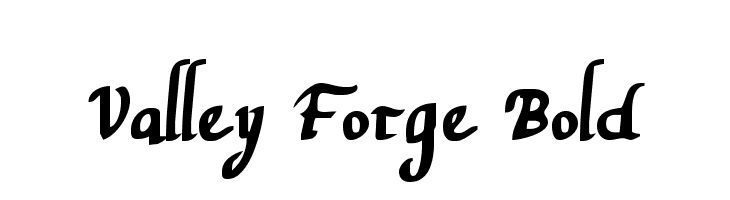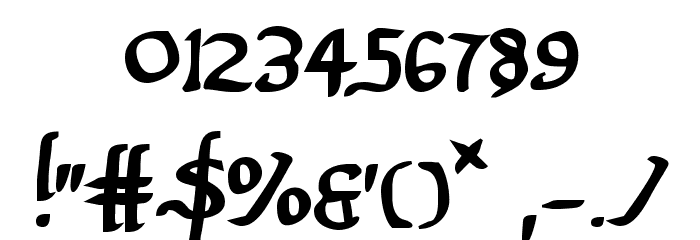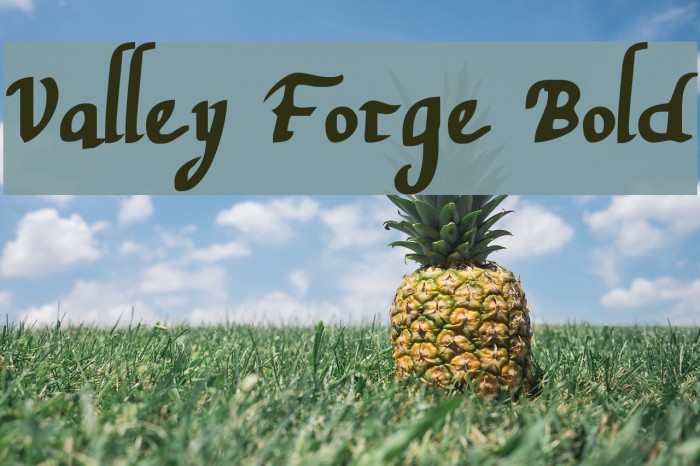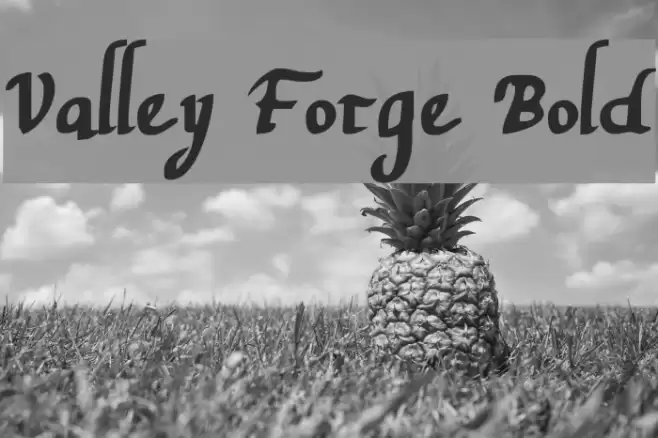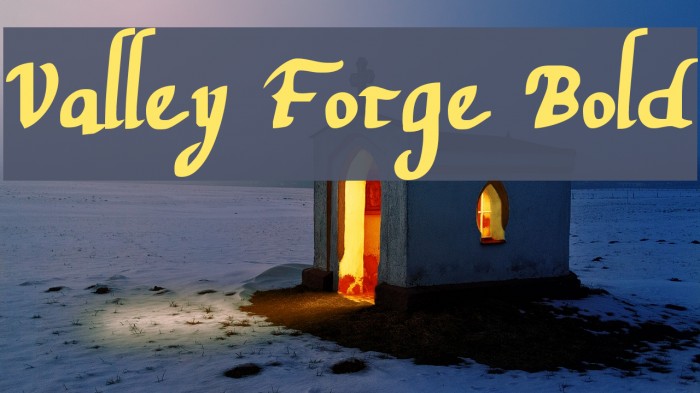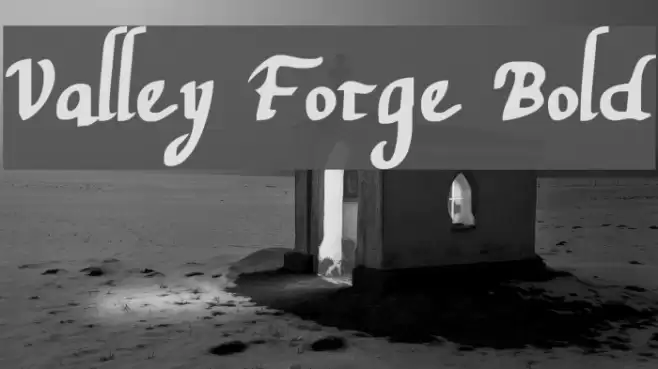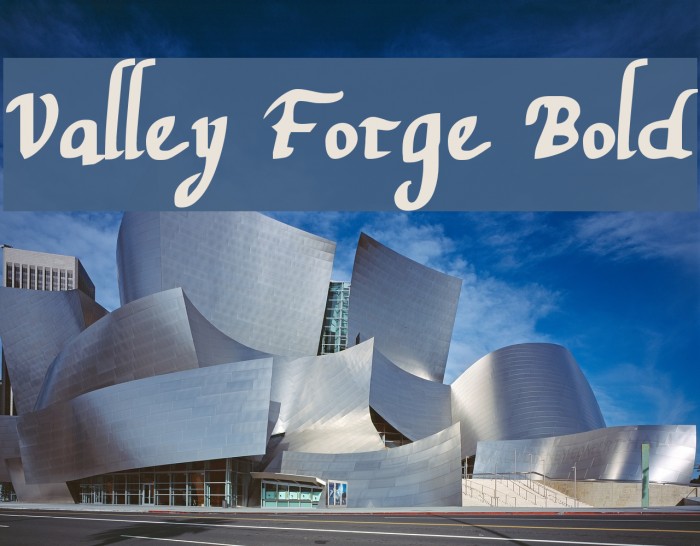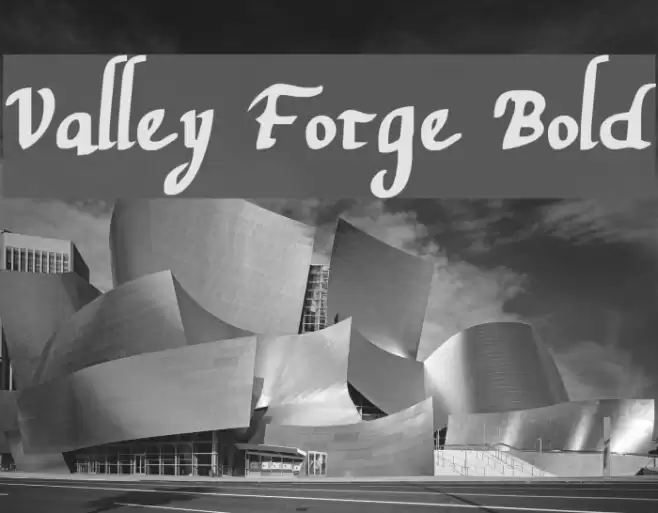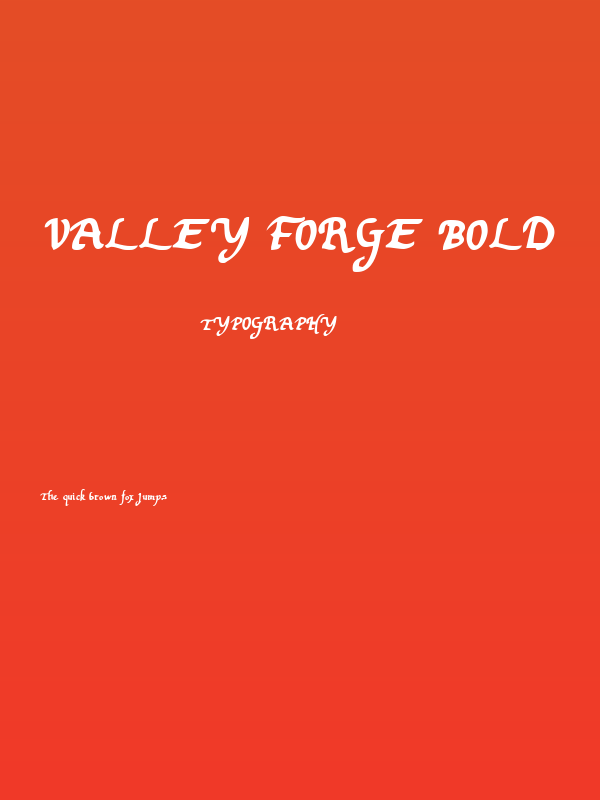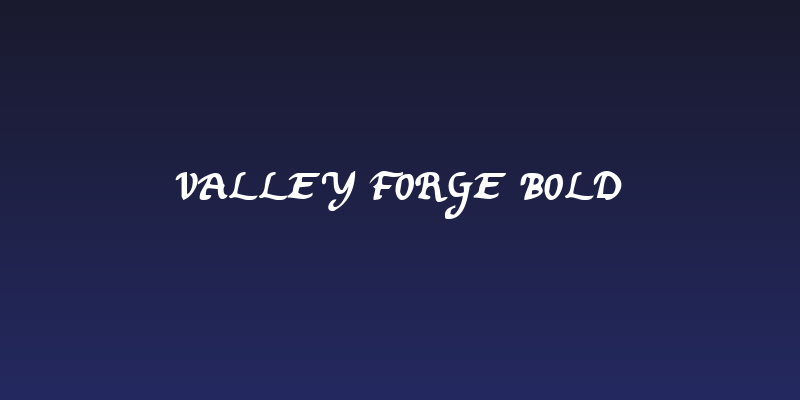
Valley Forge Bold Font
Valley Forge Bold Description
This font features a bold and dynamic script style, characterized by its flowing, cursive letterforms that convey a sense of movement and elegance. The uppercase letters are slightly more angular, providing a striking contrast to the more rounded lowercase letters. The numerals are distinct and maintain the same flowing style, ensuring consistency across all characters. Special characters are designed with the same attention to detail, making them suitable for decorative purposes. The overall appearance is both classic and modern, making it versatile for various design needs.
| Proposed Projects | Ideal for branding, invitations, and decorative headings. |